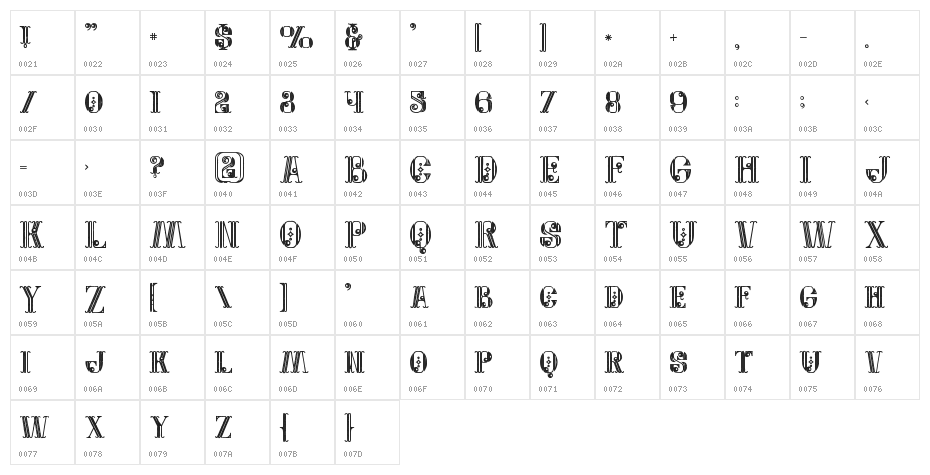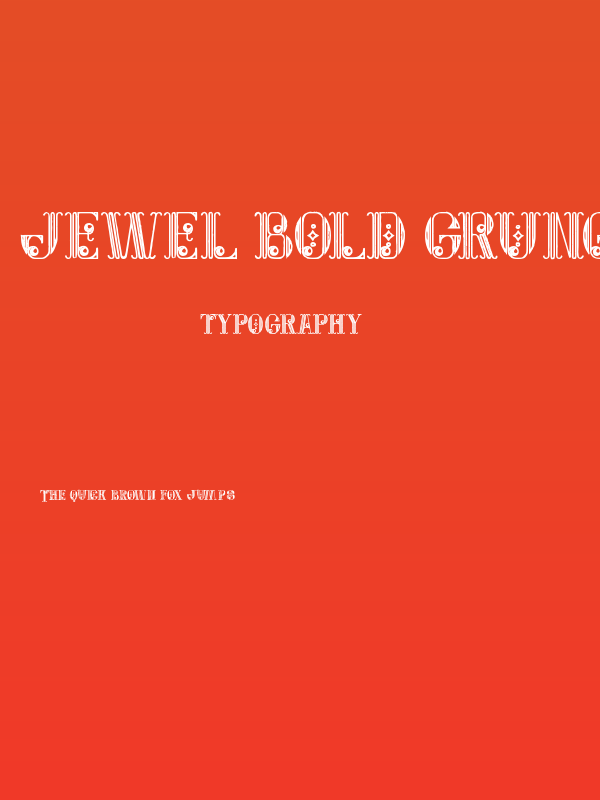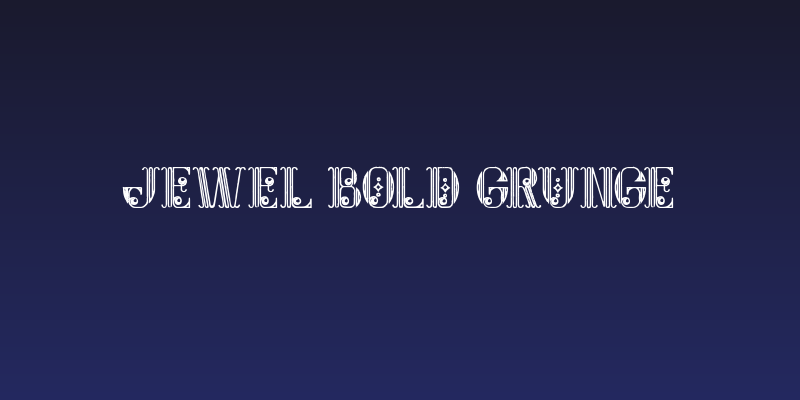
Jewel Bold Grunge Font
Jewel Bold Grunge Description
This font features a bold and decorative style with a grunge aesthetic, characterized by intricate patterns and embellishments within each letter. The uppercase and lowercase letters maintain a consistent design, with a unique blend of vintage and modern elements. The numbers and special characters follow the same ornate style, making them stand out with their detailed and artistic appearance. The font's overall look is eye-catching and suitable for projects that require a strong visual impact.
| Proposed Projects | Ideal for posters, album covers, branding, and any design project that requires a bold and artistic touch. |